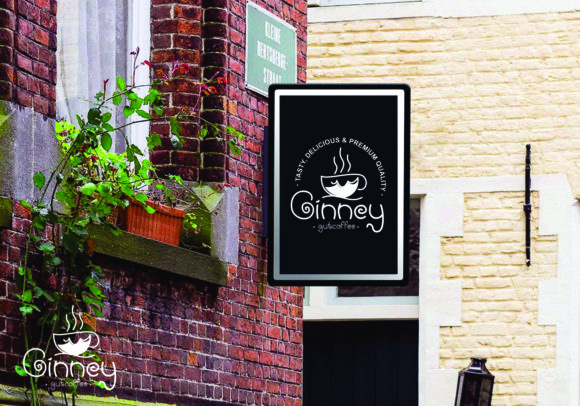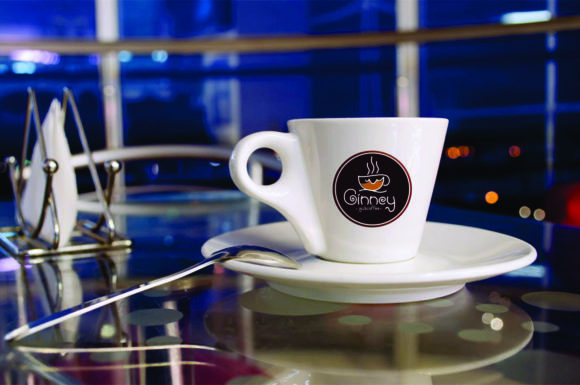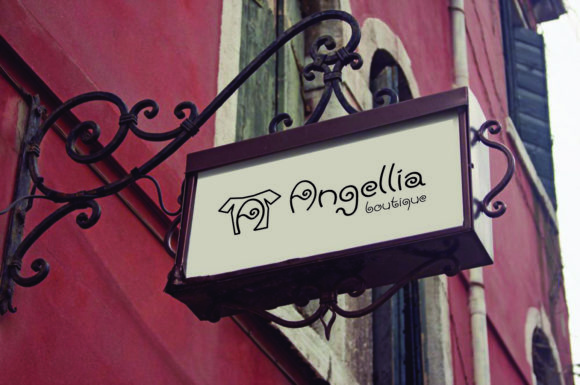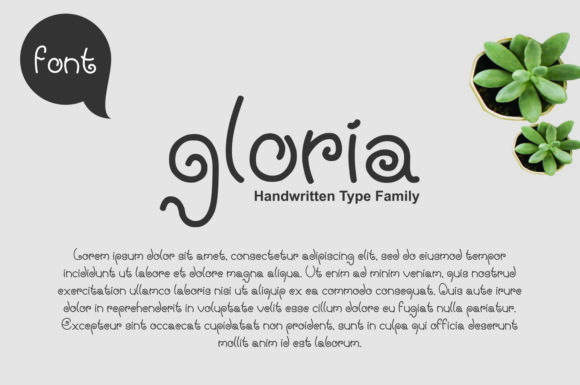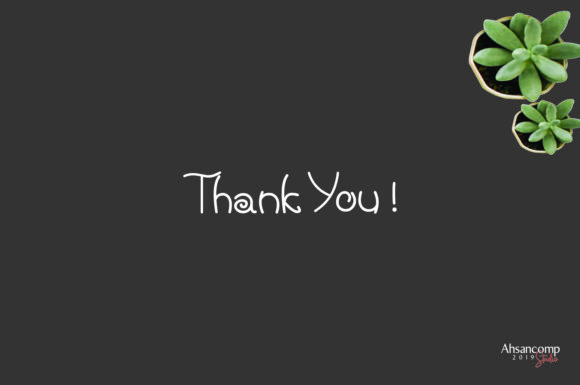
Discover the Whimsical Charm of Gloria Font: A Fun and Playful Handwritten Typeface
Are you tired of using the same old fonts in your designs? Look no further than the Gloria Font, a delightful handwritten typeface that’s sure to add a touch of whimsy and fun to your creations. With its childish feel and playful vibe, Gloria Font is perfect for designers and crafters who want to add a dash of personality to their work.
The Story Behind Gloria Font
Gloria Font is a carefully crafted handwritten typeface that’s designed to evoke a sense of nostalgia and playfulness. Its unique and quirky characters are reminiscent of handwritten notes and doodles, making it perfect for designs that require a personal touch. Whether you’re creating a logo, a poster, or a social media graphic, Gloria Font is sure to bring a smile to your audience’s faces.
Key Features of Gloria Font
- Handwritten feel: Gloria Font has a distinctly handwritten feel that’s perfect for creating designs that feel personal and approachable.
- Childish charm: With its playful and whimsical characters, Gloria Font is sure to add a touch of childhood wonder to your designs.
- Unique characters: Each character in Gloria Font is carefully crafted to be unique and quirky, making it perfect for designs that require a bit of personality.
- Versatile: Gloria Font can be used for a wide range of designs, from logos and posters to social media graphics and more.
Why Designers and Crafters Love Gloria Font
So why do designers and crafters love Gloria Font? For one, it’s a great way to add a bit of whimsy and fun to designs that might otherwise be boring or generic. Additionally, Gloria Font is a versatile typeface that can be used for a wide range of projects, from children’s books and educational materials to branding and advertising.
Gloria Font is also a great choice for designers and crafters who want to create designs that feel personal and approachable. With its handwritten feel and childish charm, Gloria Font is perfect for creating designs that feel like they were made just for you.
Tips for Using Gloria Font in Your Designs
- Use it sparingly: While Gloria Font is a fun and playful typeface, it can be overwhelming if used too much. Try using it sparingly to add a touch of whimsy to your designs.
- Pair it with other fonts: Gloria Font pairs well with a wide range of other fonts, from serif and sans serif typefaces to script fonts and more.
- Experiment with colors: Gloria Font looks great in a wide range of colors, from bright and bold to pastel and soft.
In conclusion, Gloria Font is a fun and playful handwritten typeface that’s perfect for designers and crafters who want to add a touch of whimsy and personality to their designs. With its childish feel and unique characters, Gloria Font is sure to bring a smile to your audience’s faces. Whether you’re creating a logo, a poster, or a social media graphic, Gloria Font is a great choice for any design project.